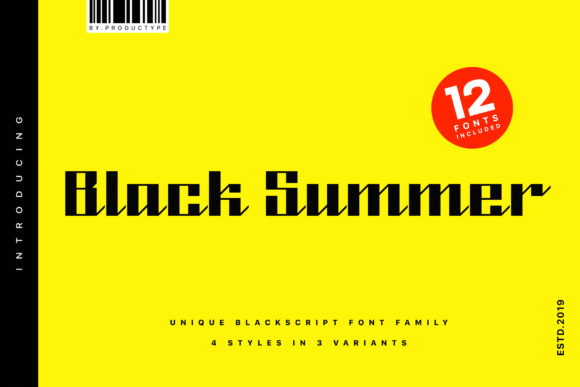
The Ultimate Design Game-Changer: Black Summer Family Font
I’ll never forget the time I was working on a design project for a client who wanted a bold, eye-catching font to make their brand stand out. I scoured the internet for the perfect font, but nothing seemed quite right. That was until I stumbled upon the Black Summer Family Font. This stunning blackletter font family with a contemporary twist has been a game-changer for my design projects, and I’m excited to share my experience with you! 😊
• ✅ Unique and versatile: Black Summer is a one-of-a-kind font family that can add a bold feel to any design project.
• ✅ Contemporary twist: The font’s modern take on traditional blackletter styles makes it perfect for designers looking for something fresh and exciting.
• ✅ Easy to read: Despite its bold and ornate design, Black Summer is surprisingly easy to read, making it perfect for headlines, titles, and short paragraphs.
While Black Summer is an amazing font family, there are a few things to keep in mind:
• 🤔 Limited use in body text: Due to its bold and ornate design, Black Summer may not be the best choice for long blocks of body text.
• 🤔 May not be suitable for small sizes: The font’s intricate details may get lost at smaller sizes, so it’s best used for headlines and titles.
The story behind Black Summer is one of creative experimentation and innovation. The font’s designer was inspired by traditional blackletter styles, but wanted to create something fresh and modern. Through countless hours of research and design, Black Summer was born – a font family that’s both bold and beautiful.
Font Name Black Summer Family Font
Author Productype
A: Black Summer is perfect for headlines, titles, and short paragraphs. It’s best used sparingly to add a bold and eye-catching touch to your design.
Q: Is Black Summer a difficult font to read?
A: Despite its bold and ornate design, Black Summer is surprisingly easy to read. However, it may not be the best choice for long blocks of body text.